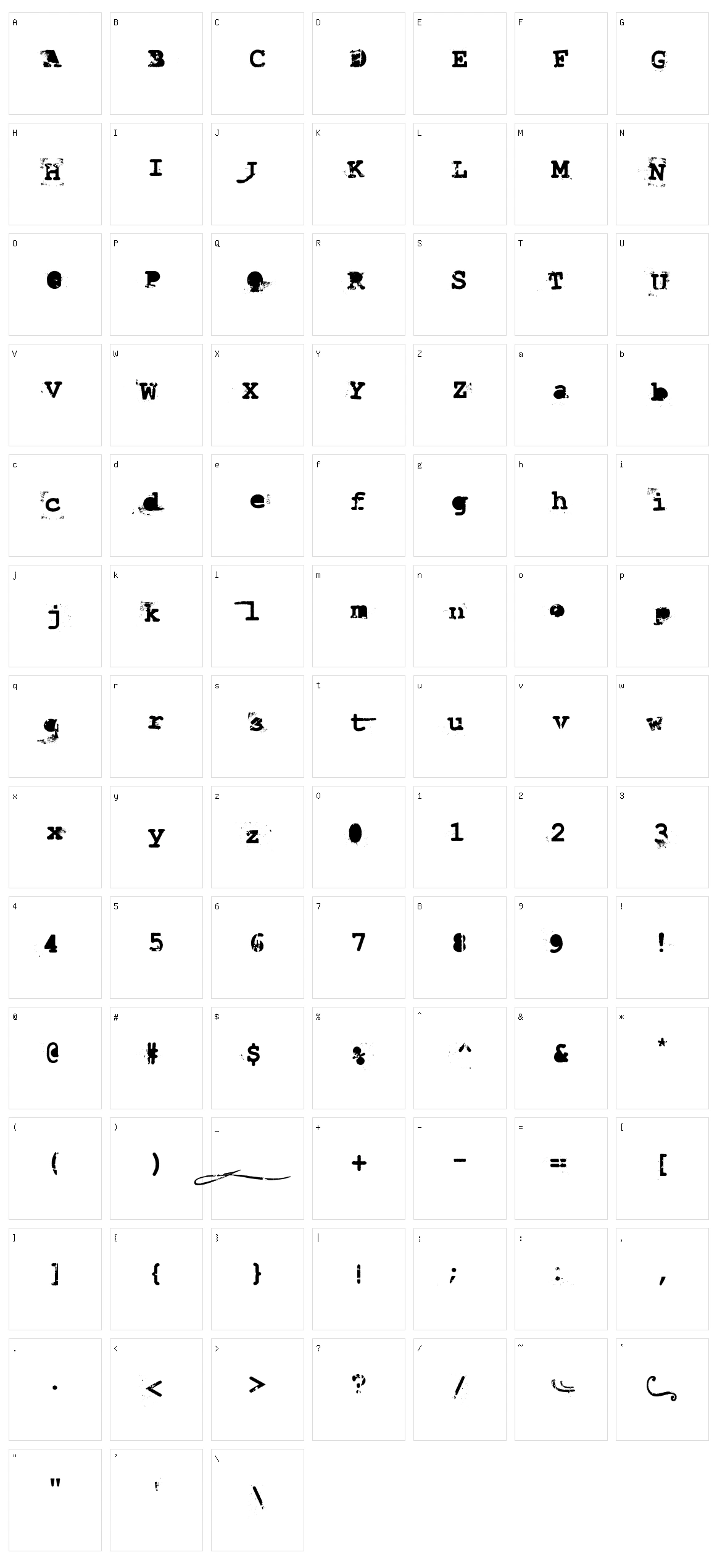
The free font Last Draft is carefully designed by Dirt2.com - SickCapital, showcasing a thoughtful balance of creativity and usability and falls under the Typewriter font style. When you download the ZIP file, it contains only 312.73 KB of font files, making it lightweight and quick to download. Please review the license details below to understand permitted usage and distribution rights. If license information is not available, we recommend using this font for personal projects only or contacting the author directly for commercial usage permissions.